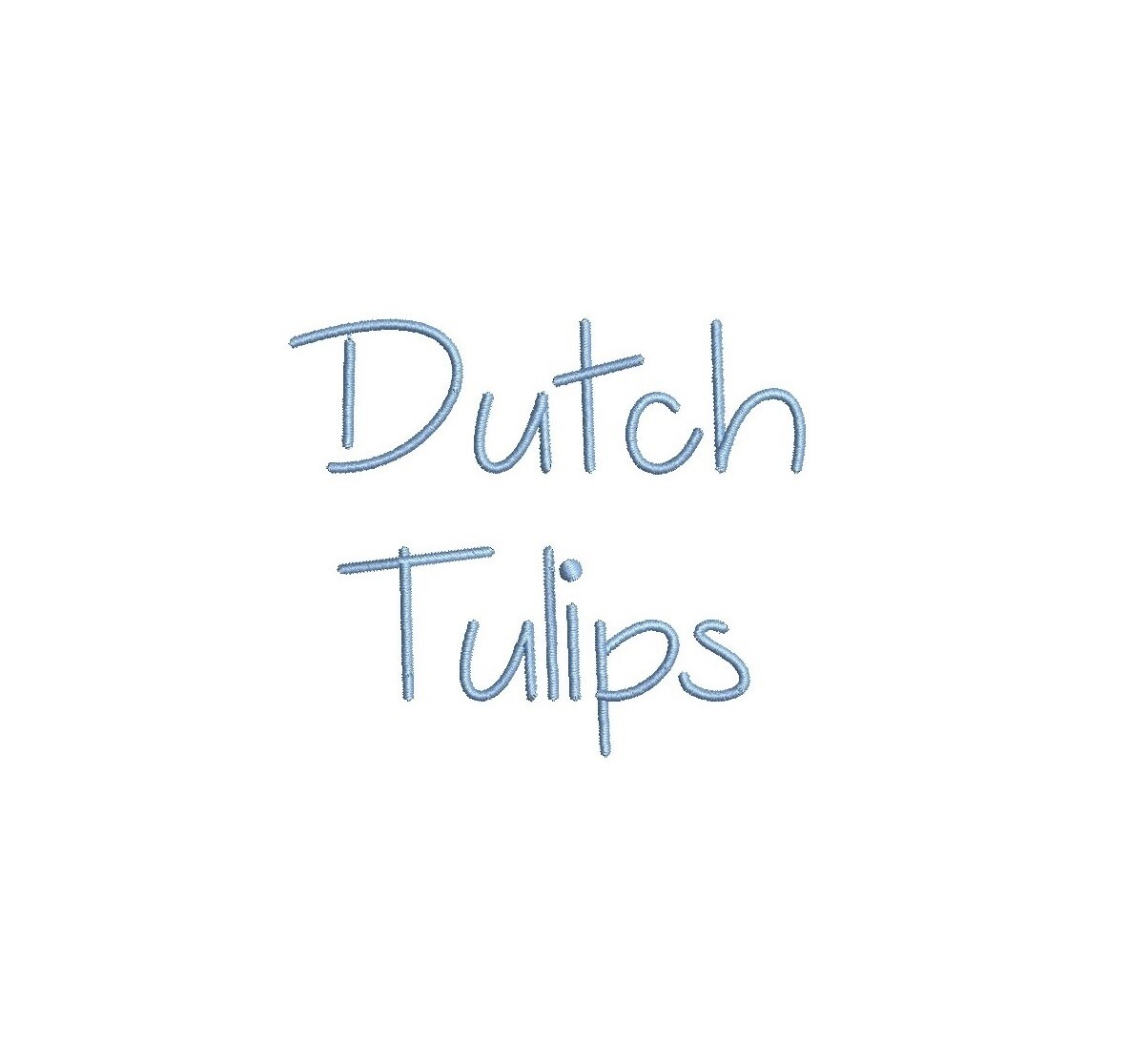
Introducing Dutch Tulips Regular ESA font - a blooming fusion of elegance and style, perfect for adding a touch of sophistication to your designs. Crafted with meticulous attention to detail, this premium font guarantees a seamless and enjoyable design experience. Compatible with Wilcom Studio e4.5.6 and Hatch 3 versions and up, this versatile typeface ensures smooth embroidery creation. Whether it's invitations, apparel, or home decor, Dutch Tulips Regular ESA font adds a floral charm to any project. Don't miss out on this delightful gem; elevate your creations with its timeless allure. Get it now and let your designs blossom beautifully.